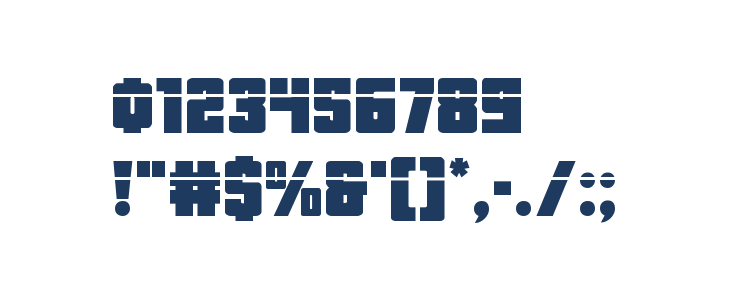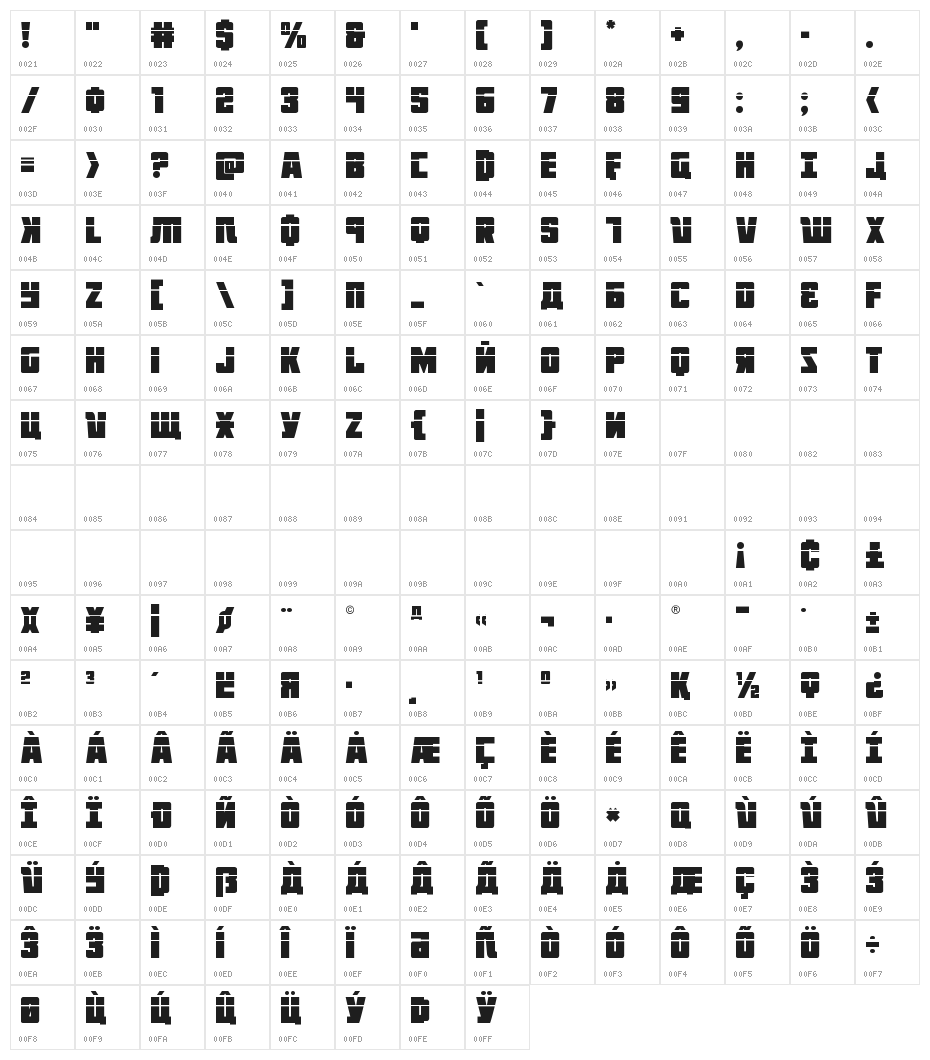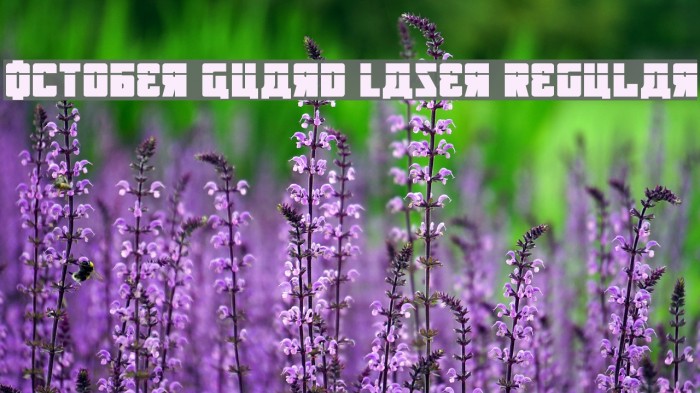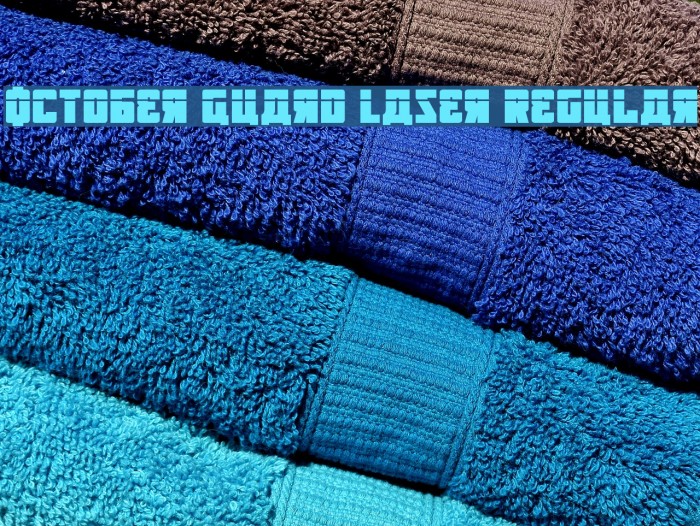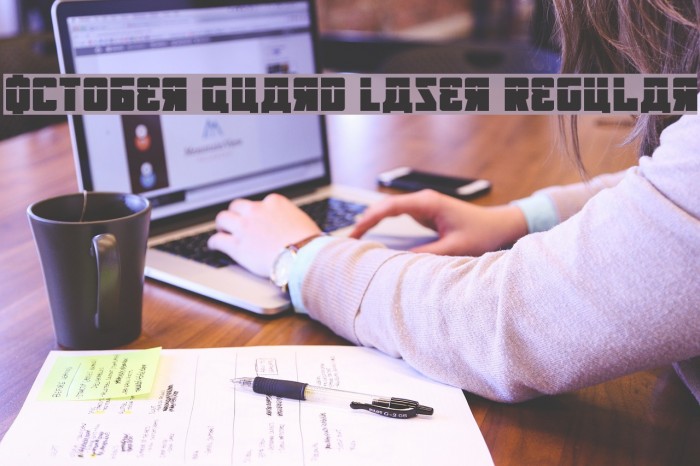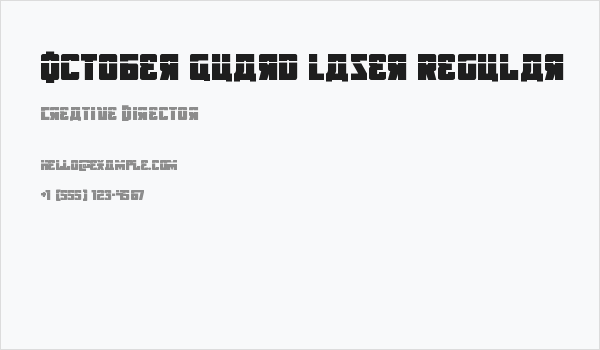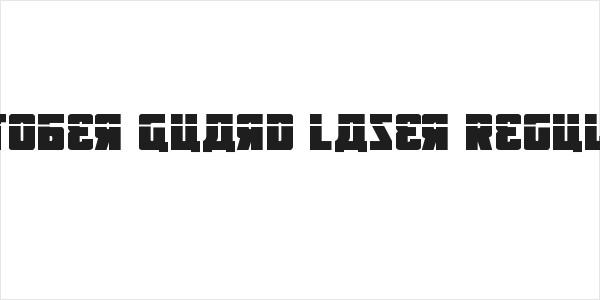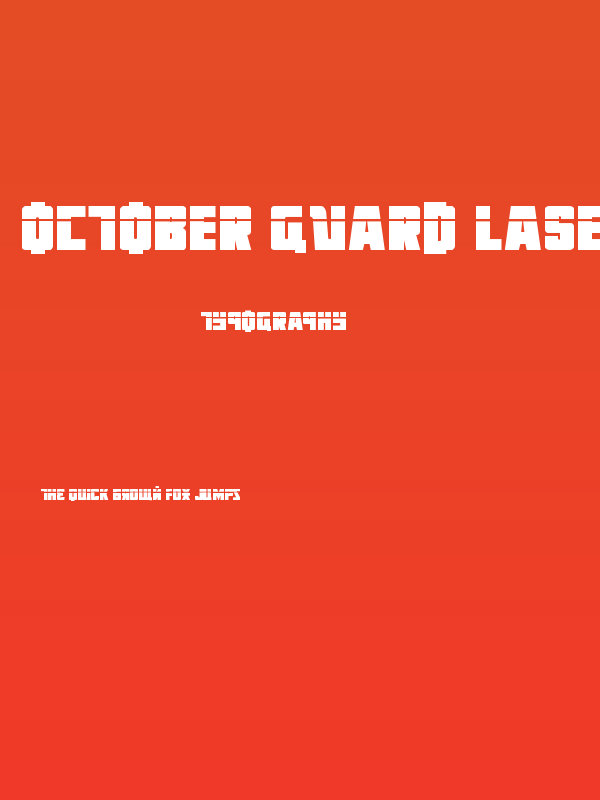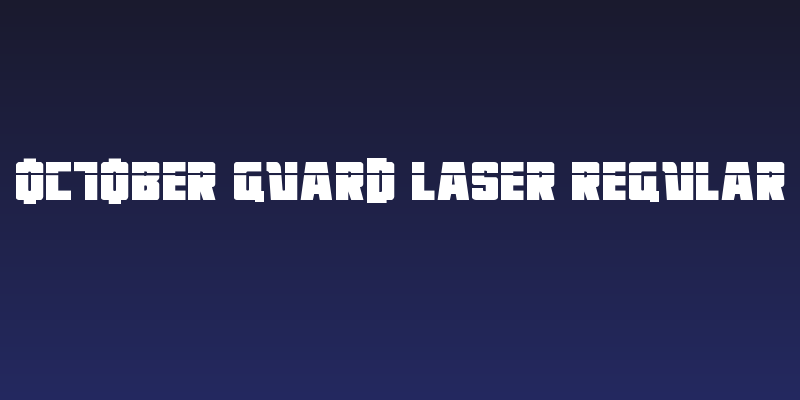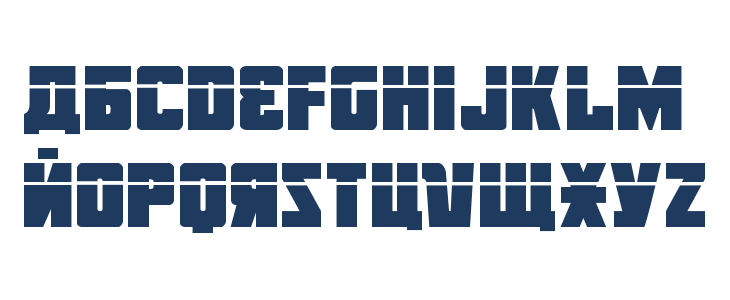
October Guard Laser Regular Font
October Guard Laser Regular Description
This font features a bold, geometric design with a strong, blocky appearance. The characters are constructed with sharp angles and straight lines, giving it a futuristic and industrial feel. The uppercase letters are particularly striking, with a uniform height and width that create a cohesive look. The numerals and special characters maintain the same boldness and angularity, ensuring consistency across all glyphs. This font's heavy weight and solid structure make it ideal for impactful designs that require a strong visual presence.